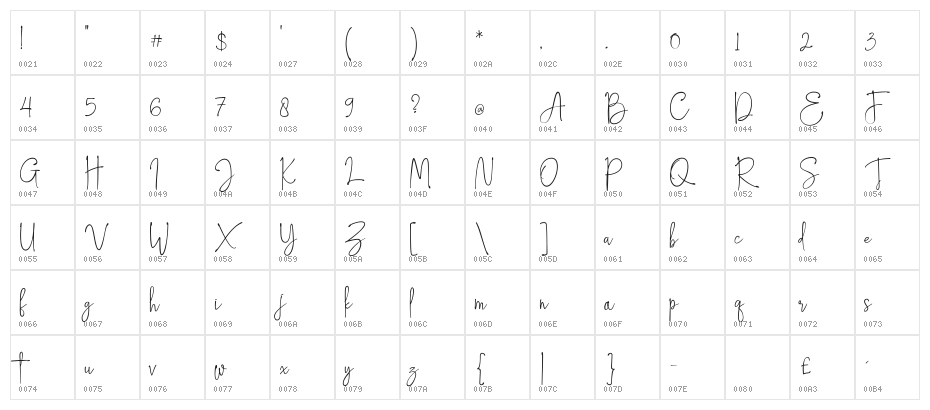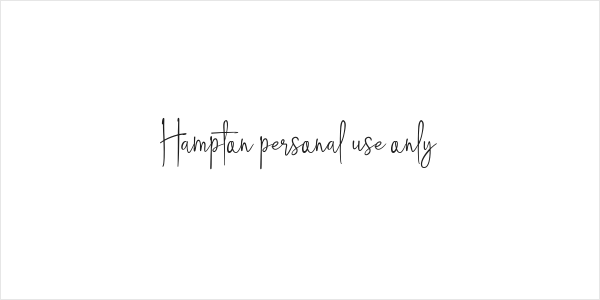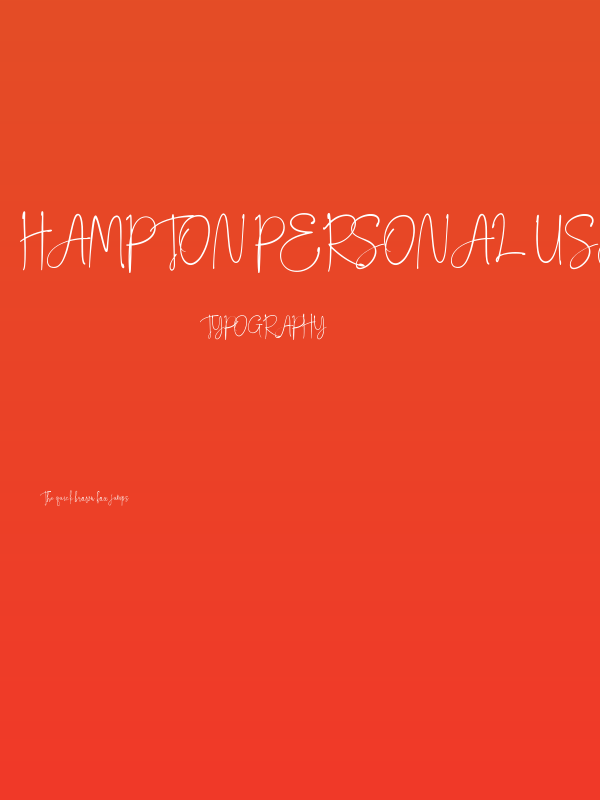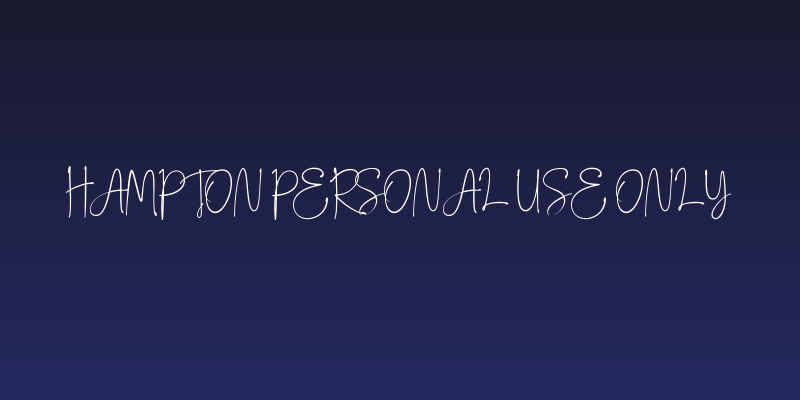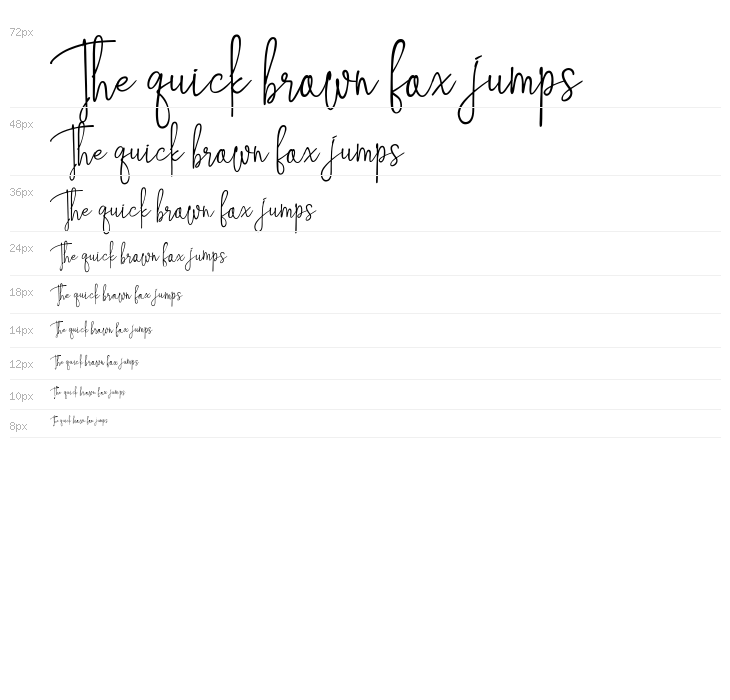
Hampton personal use only Font
Hampton personal use only Description
This font features an elegant and flowing script style, characterized by its thin, delicate strokes and graceful curves. The uppercase letters are tall and slightly elongated, giving a sense of sophistication and formality. The lowercase letters maintain a consistent flow, with some characters featuring loops and swashes that enhance its decorative appeal. The numerals are designed to match the overall script style, maintaining the same thin strokes and elegant curves. Special characters are included, seamlessly integrating with the rest of the font's design. This font is ideal for projects that require a touch of elegance and sophistication, such as wedding invitations, greeting cards, and branding materials.
| Overall Style | Elegant, Decorative |
| Proposed Projects | Wedding invitations, greeting cards, branding materials, elegant posters. |